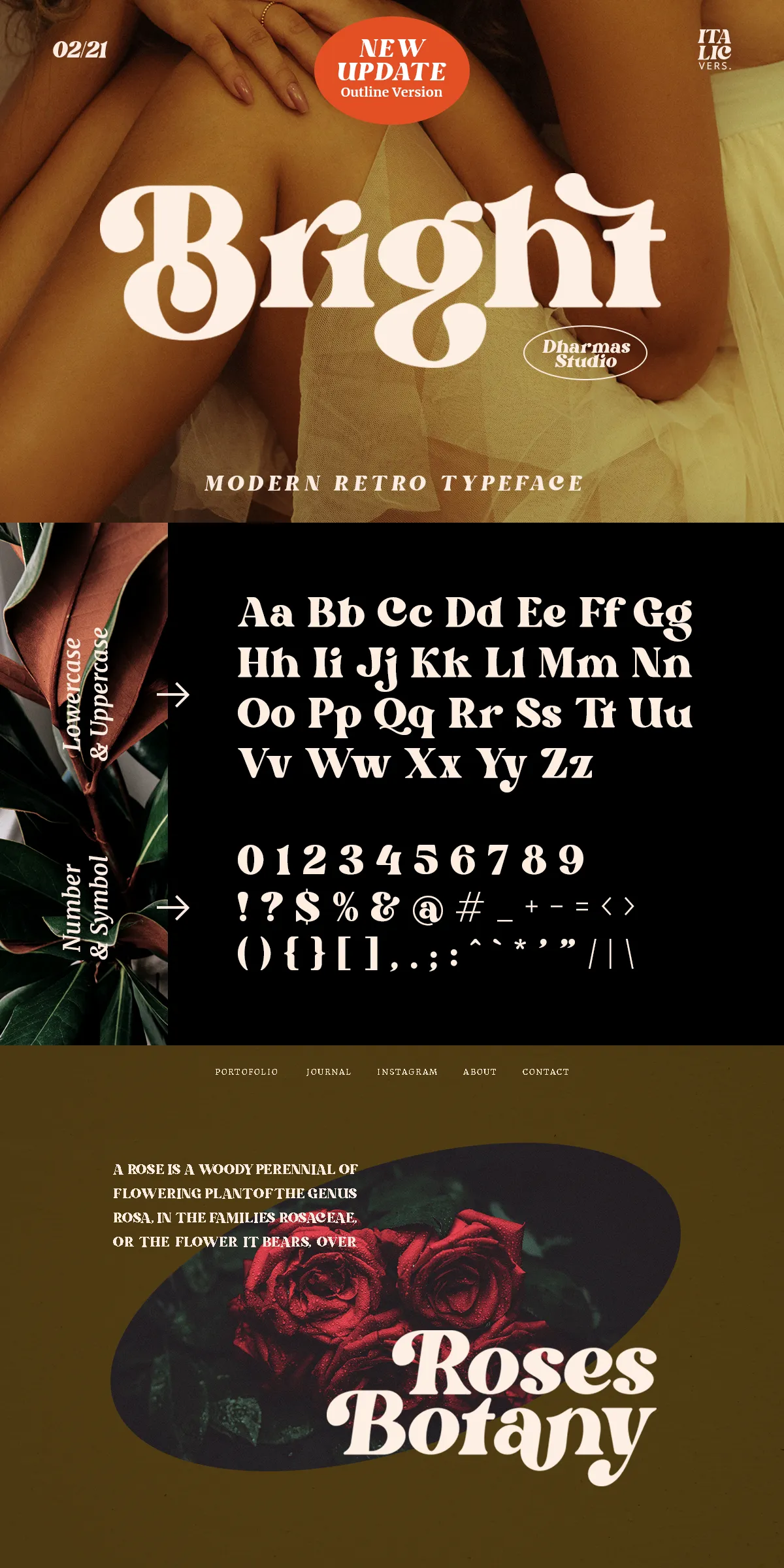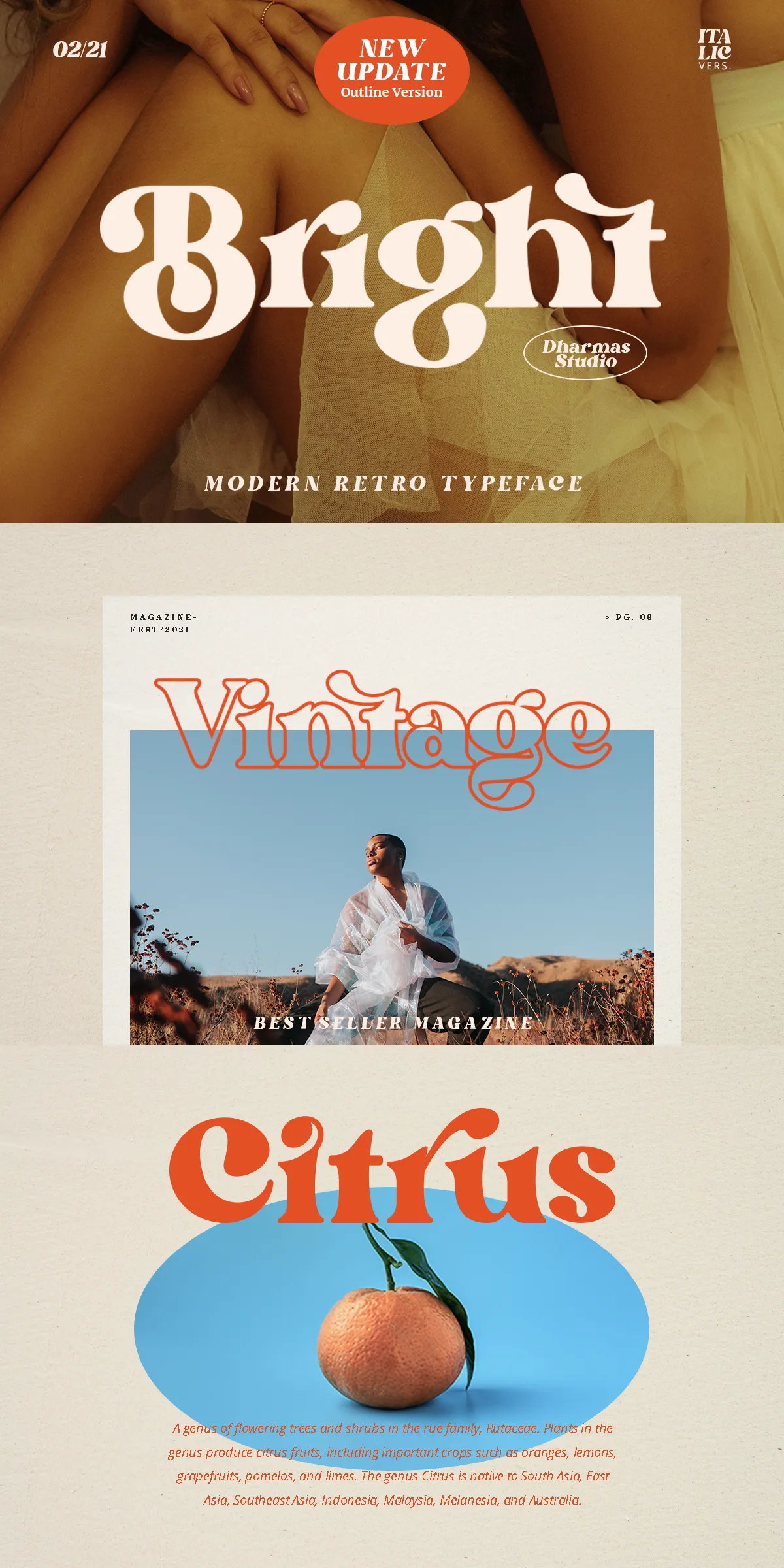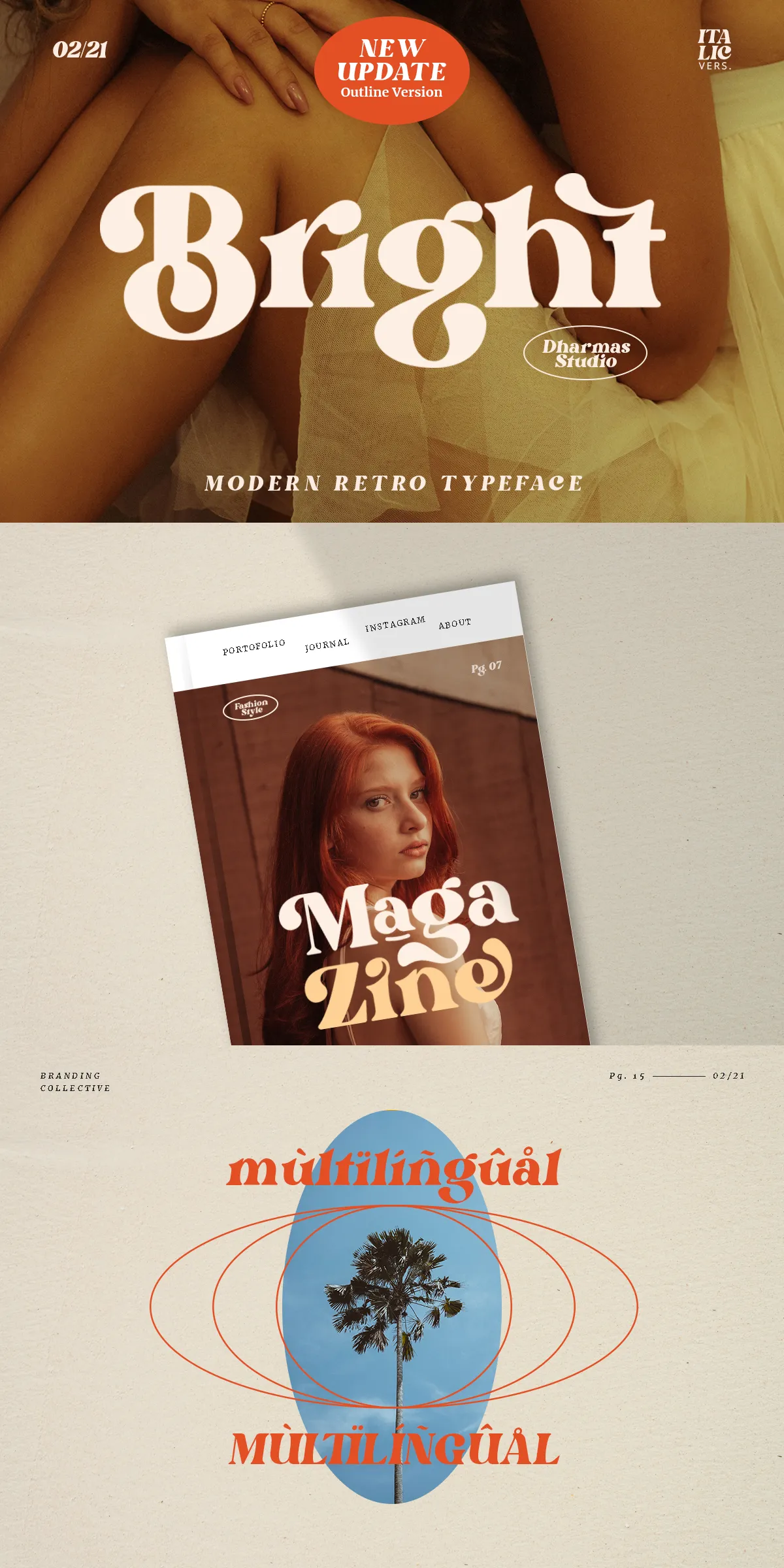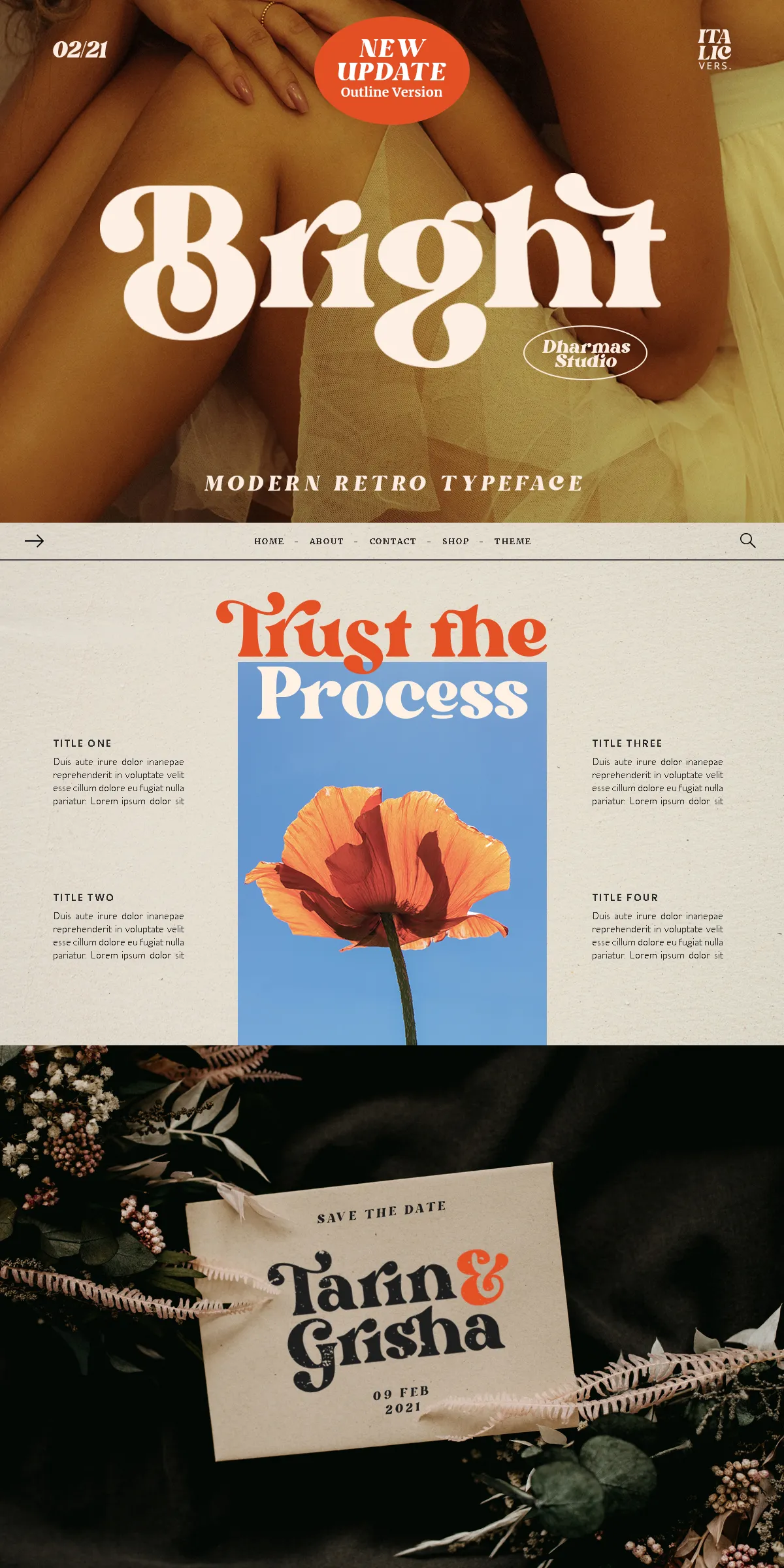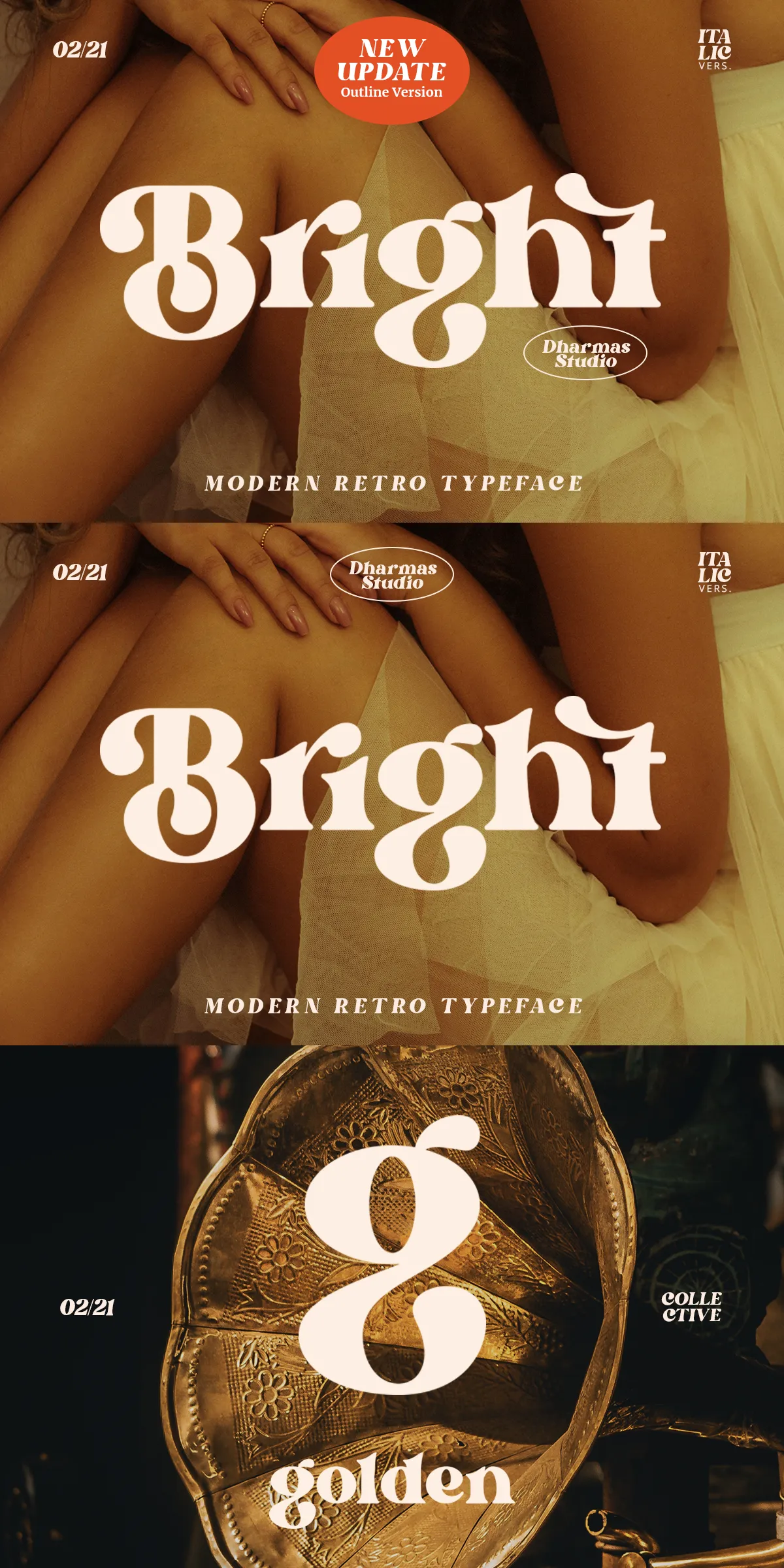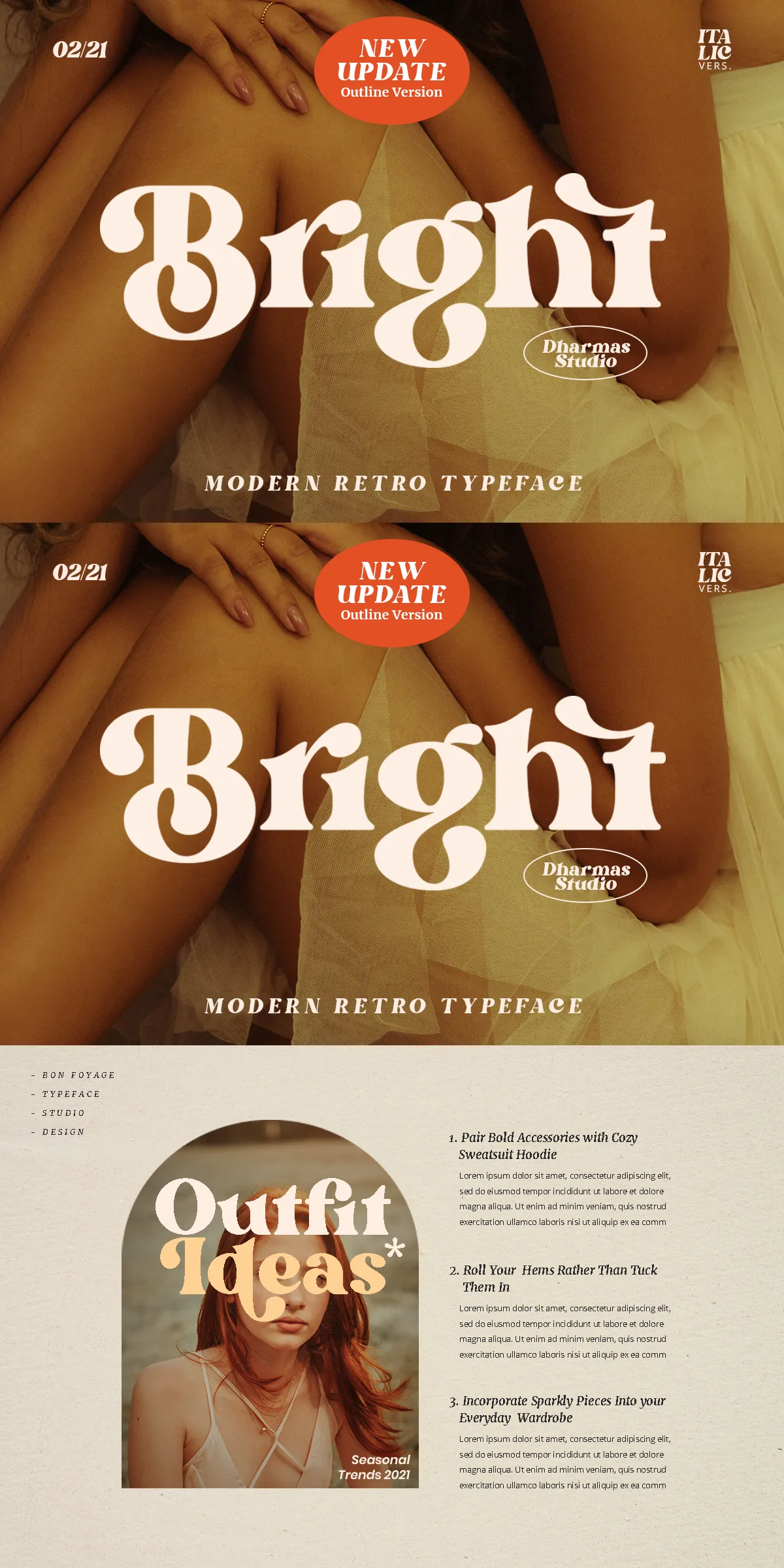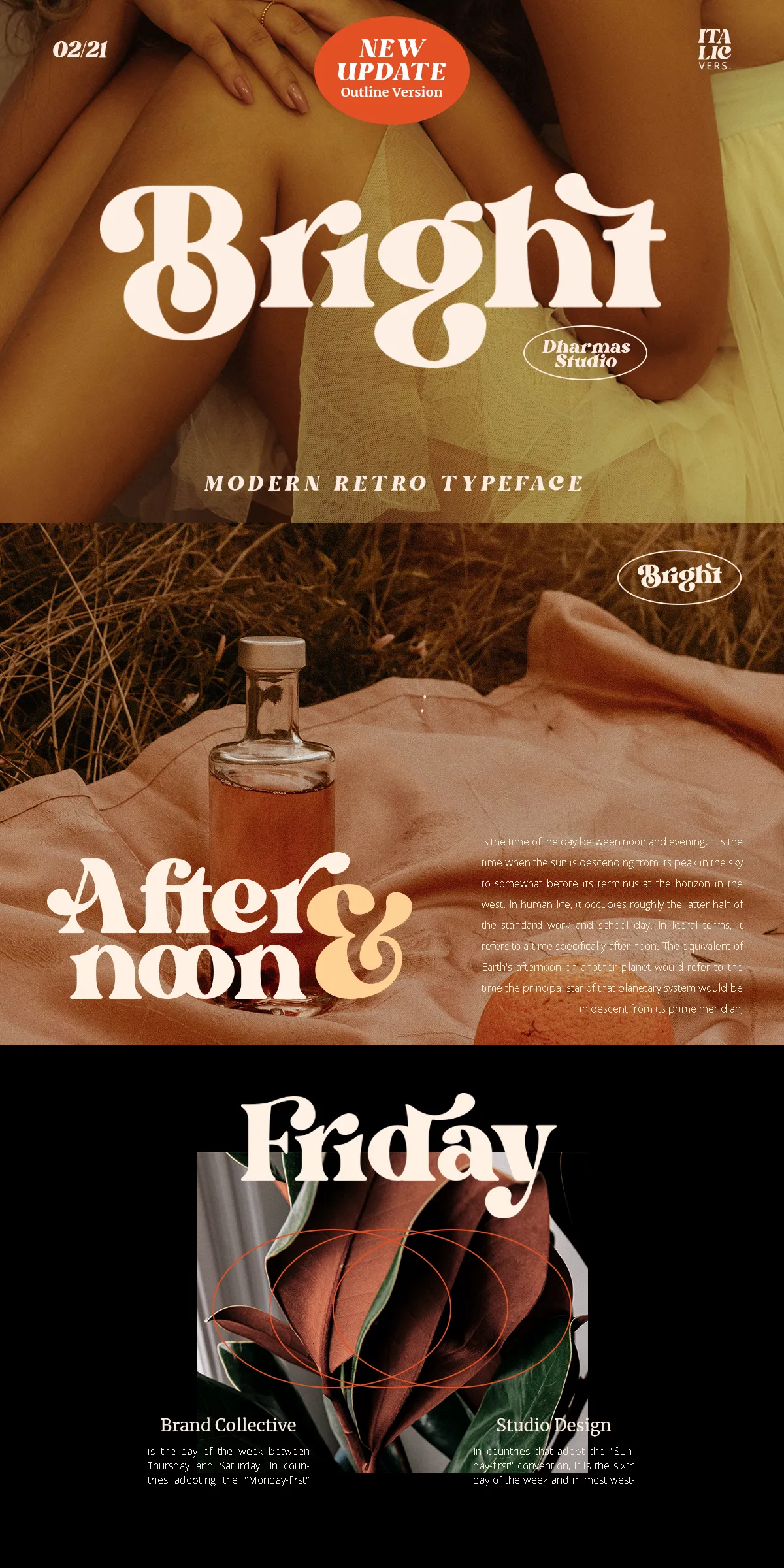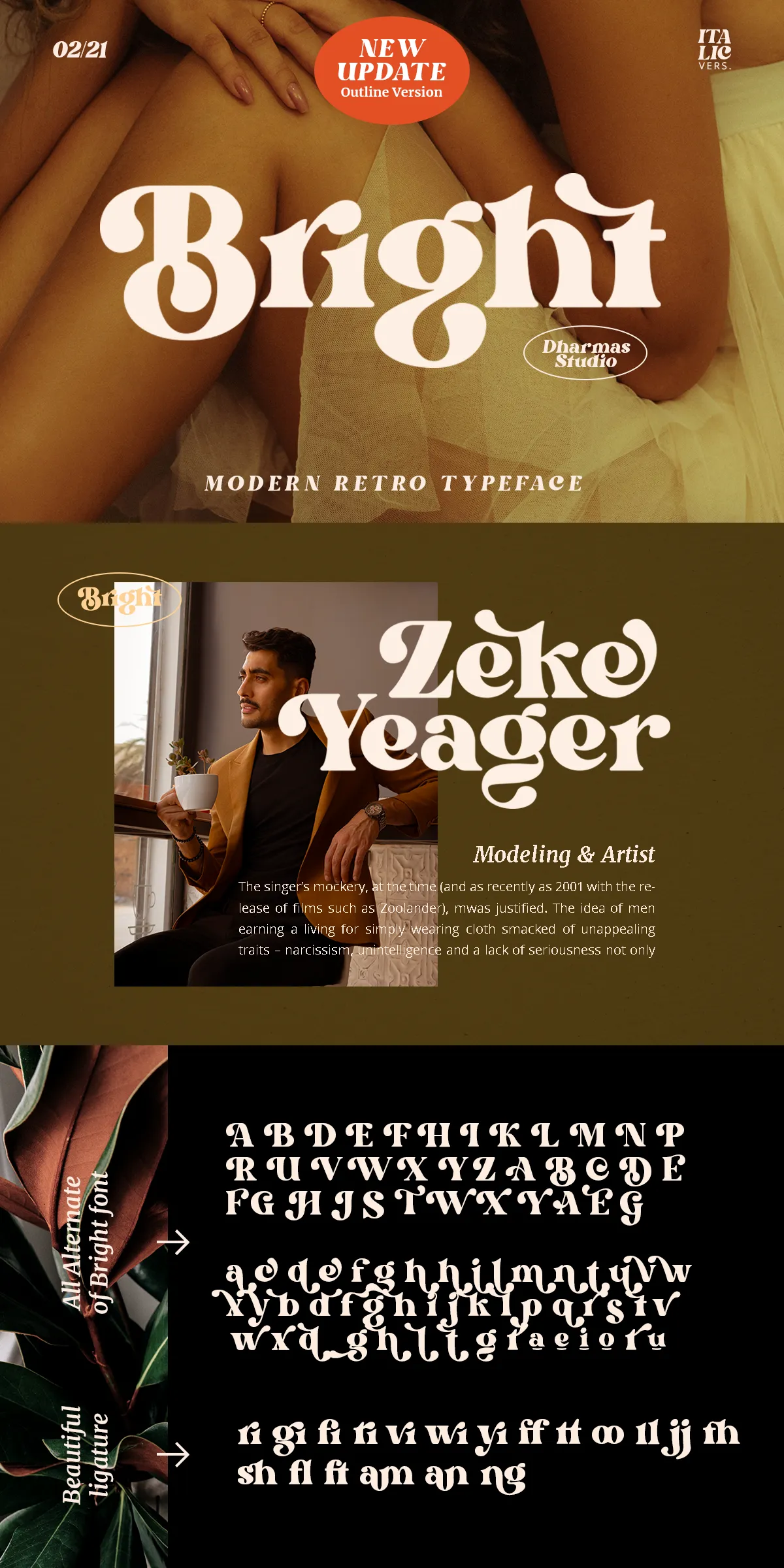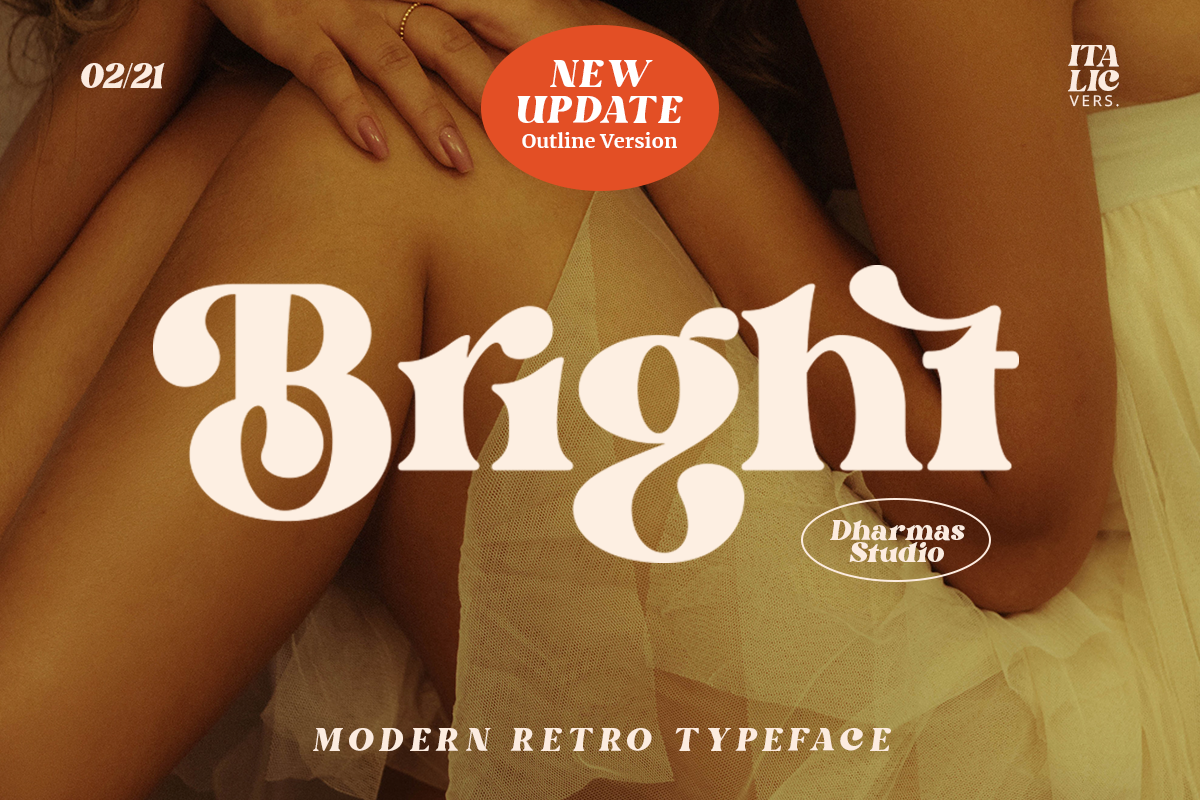
Ready to make a statement? Meet Bright — a vibrant, stylish font that masterfully blends modern clarity with retro flair. Designed for creatives who love the energy of the 60s and 70s but want a sleek, contemporary edge, Bright is your go-to typeface for projects that demand personality, precision, and unforgettable flair.
Why Bright Stands Out in a Crowd
Bright isn’t just another font — it’s a design revolution in typography form. Its clean, well-proportioned letterforms are effortlessly modern, while subtle curves and playful details nod to the golden era of vintage design. Whether you’re crafting a nostalgic album cover, designing a retro-inspired logo, or building a vibrant social media campaign, Bright delivers a fresh, energetic aesthetic that feels both timeless and current.
Dive deeper, and you’ll discover what truly makes Bright special: over 50 unique alternates and ligatures. These aren’t just fancy flourishes — they’re tools for creativity. Swap in a handcrafted serif twist, a bold condensed letter, or a stylized swash, and suddenly your text transforms from ordinary to extraordinary. Every project gets a unique voice — no two designs look the same.
The Power of the Outline Version — Now Updated and Improved!
Get ready for a visual upgrade: the new outline version of Bright is here — a bold, eye-catching variant that cuts through clutter with fearless style. Perfect for logos, posters, and high-impact branding, the outline version turns each letter into a sculpted visual element. It’s ideal for printing, signage, embroidery, and any medium where sharp outlines demand attention. This isn’t a clone — it’s a new dimension of the font, built from the same DNA but reimagined for maximum impact.
Use Bright Wherever Your Creativity Leads
Bright is engineered for projects that need to connect, engage, and stand out:
- Logo & Brand Identity – Create a memorable brand voice with a retro-modern twist
- Business Cards & Stationery – Make your contact info impossible to forget
- Event & Poster Design – Perfect for music festivals, art shows, and vintage-themed events
- Merchandise & Packaging – Add instant character to t-shirts, mugs, stickers, and box designs
Transform Any Project with Brilliant Simplicity
Bright doesn’t ask for much — just space and intention. But it gives back so much more: depth, charm, and a visual rhythm that guides the eye. It’s not about being loud — it’s about being clear, confident, and beautifully intentional.
With Bright, every letter tells a story. From the first stroke to the final flourish, you’re not just typing — you’re designing. So whether you’re working on a personal project or a client campaign, let Bright be your co-creator.
Bright. It’s not just a font. It’s a first impression.